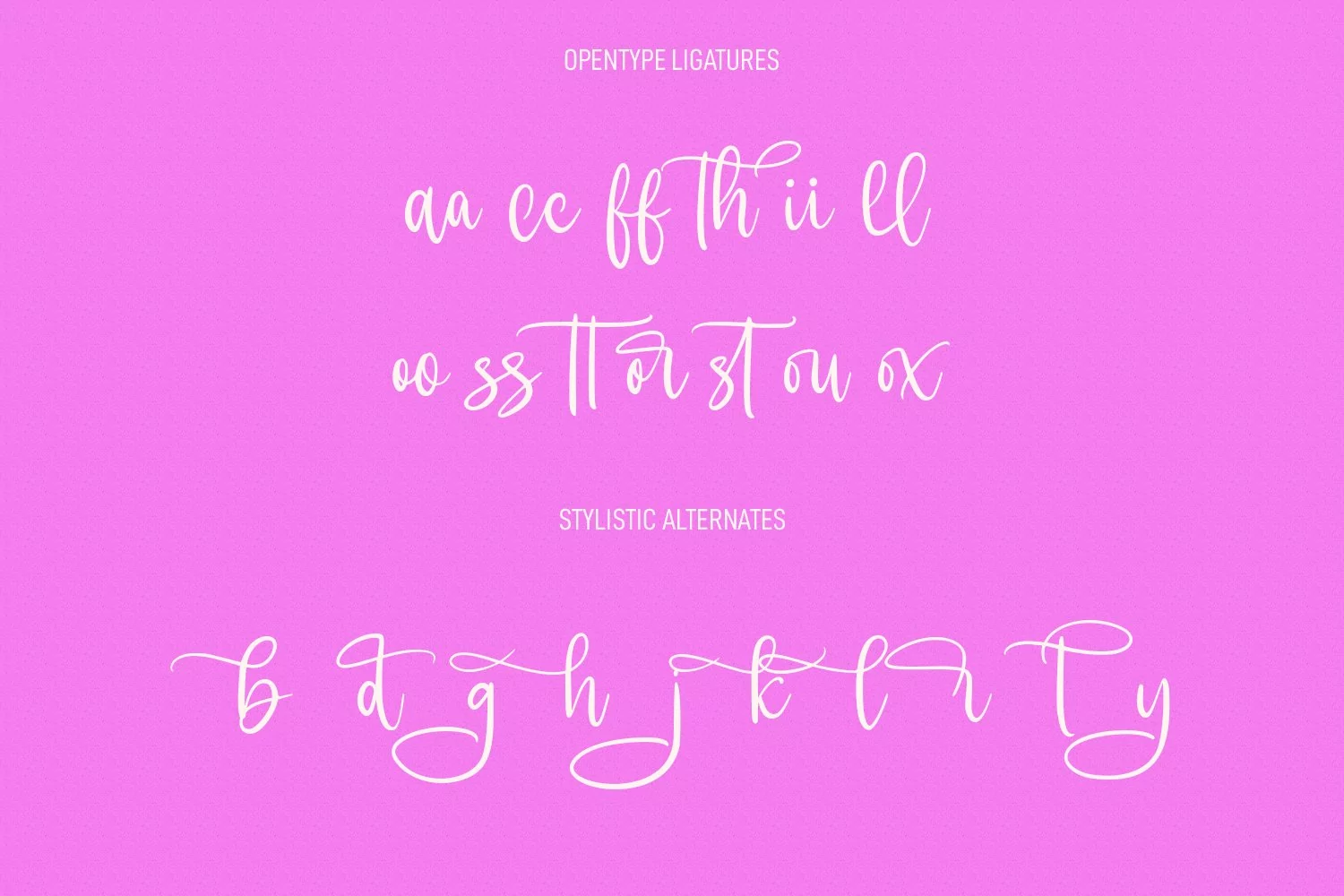
Cleverest is an expressive freestyle script font. With regular contrast stroke, fun character with a bit of ligatures and swashes alternates. To give you an extra creative work. Cleverest font support multilingual more than 100+ language. This font is good for logo design, Social media, Movie Titles, Books Titles, a short text even a long text letter and good for your secondary text font with sans or serif. Make a stunning work with Cleverest font.